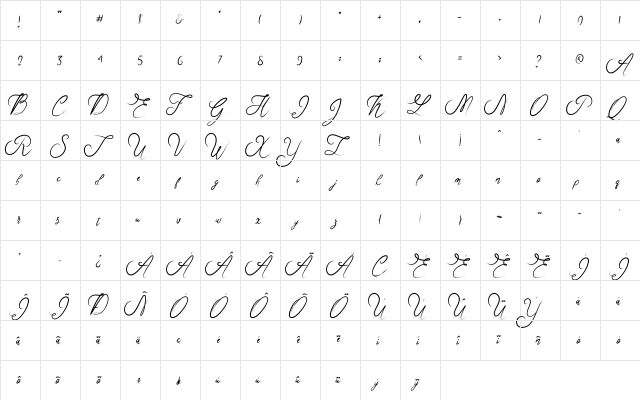
Rosella Script Regular
| Foundry | Wd Font |
| Designer | Captain Jack |
Design Context for Rosella Script Typeface
Rosella Script brings a calligraphic fluidity to the page — its connecting strokes and expressive curves give it an unmistakably human quality.
Font Pairing: Combine Rosella Script with a simple geometric sans for maximum contrast — the tension between flowing curves and clean structure is a classic typographic pairing.
Pro Tip: Use Rosella Script for short runs of text — names, titles, or taglines. Extended body copy in script faces tires the eye quickly.